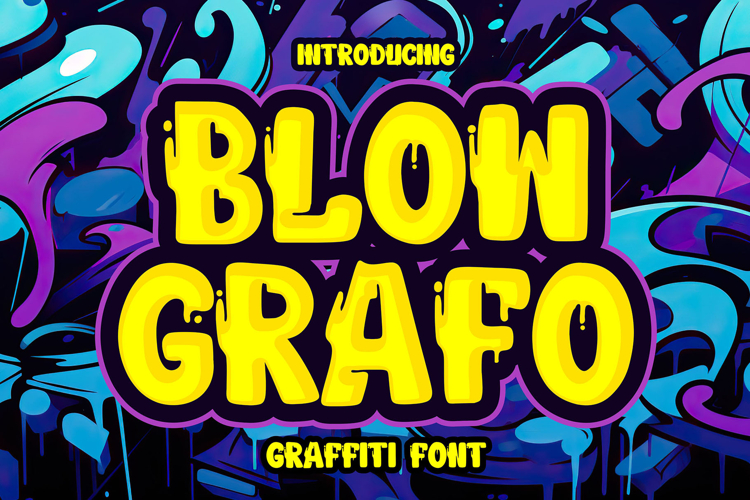
Blow Grafo - Urban Graffiti Font
Introducing Blow Grafo – the Urban Graffiti Font that embodies the raw, expressive energy of street art. Perfect for projects that need a bold and edgy touch, Blow Grafo brings an urban vibe that commands attention and makes a powerful statement.
✨ Bold and Edgy: Blow Grafo captures the essence of graffiti with its striking and dynamic letterforms. Each character is designed to convey strength and attitude, making it ideal for designs that need a bold and fearless appeal.
🌟 Urban Vibe: This font brings the gritty, authentic feel of urban street art to your projects. Whether you're designing posters or album covers, Blow Grafo infuses your work with a cool, rebellious spirit that stands out.
🖋️ Versatile for Various Projects: Blow Grafo is perfect for a wide range of creative applications, from branding and packaging to digital art and social media graphics. Its unique style ensures your text grabs attention and leaves a lasting impression.
🎨 Expressive and Dynamic: The expressive nature of Blow Grafo adds a captivating touch to your designs. Its energetic strokes and bold lines make your text pop, creating a visually impactful look that resonates with urban culture.
Elevate your designs with Blow Grafo – the Urban Graffiti Font that combines boldness, versatility, and an authentic street vibe. Ideal for making a powerful visual impact, Blow Grafo is your go-to font for adding an edgy and dynamic touch to any project.